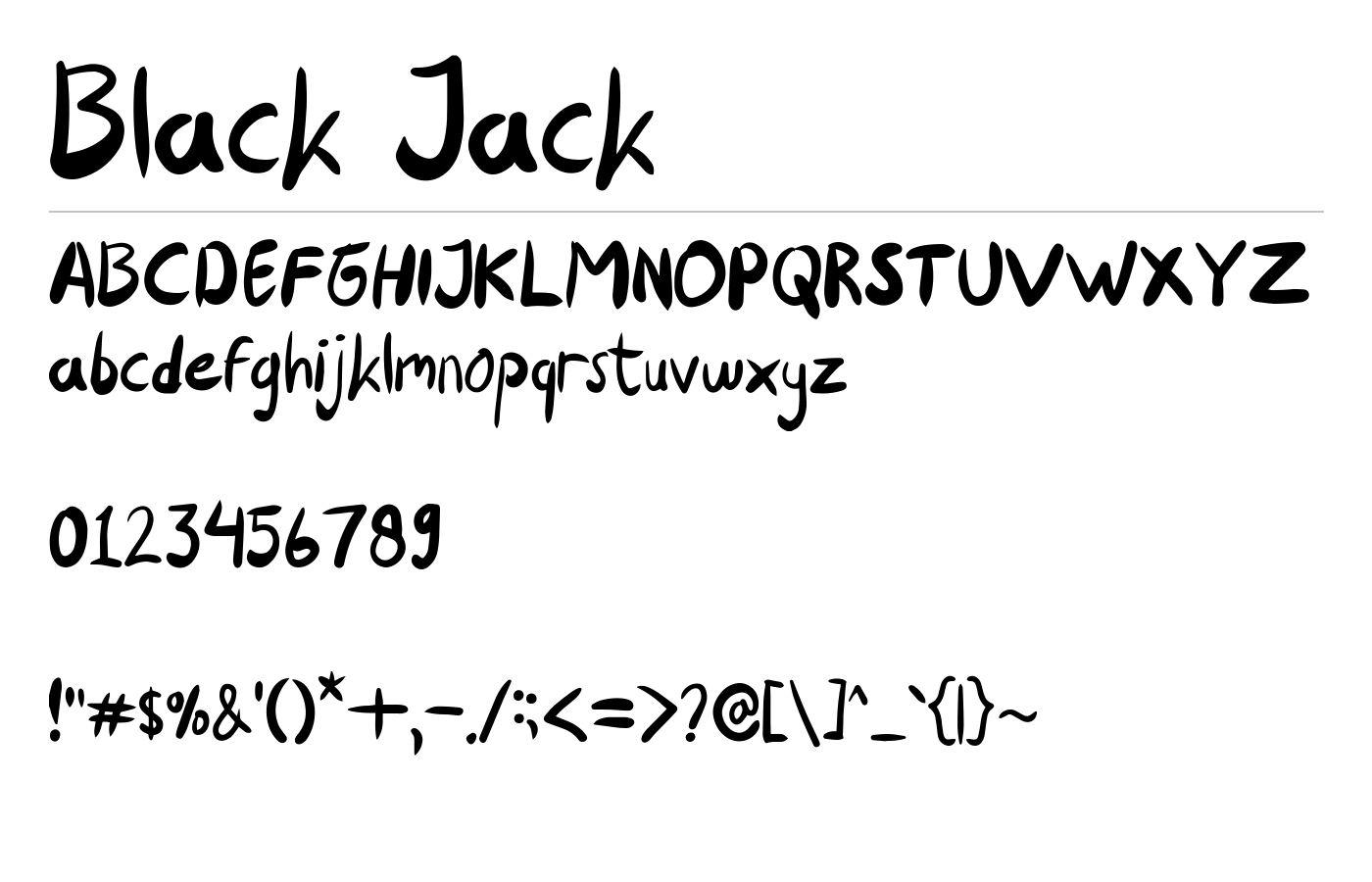
Black Jack is a casual, handwritten script font that features a friendly and lively style with smooth, flowing strokes and moderate contrast. Its playful yet readable letterforms, including unique shapes like the single-story 'a' and the distinctive uppercase 'J,' make it ideal for informal branding, invitations, and creative projects that want to convey warmth and approachability. This font works well in headlines, logos, and packaging where a personal, handcrafted feel is desired.
Black Jack Font
About Black Jack Font
| Font family | Black Jack Font |
| Designer | Abi Afandi, Primitype Studio |